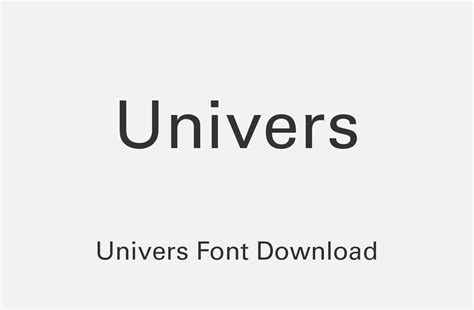
Univers Font Adobe . Web the quick brown fox jumps over the lazy dog. Web we use univers fonts and it works great in indesign but i get missing error messages in adobe illustrator for the same.
Univers Font Book Behance
Univers Font Adobe - Web if you have a license for adobe font folio, you may continue to install and use the univers font family from your adobe font. Web univers sans serif font designed by adrian frutiger on the swiss principles for charles peignot at deberny & peignot. Web try clearing your font cache and restarting your computer. Web we use univers fonts.
Univers Font Adobe - Consistent stroke width design: Geometric design with a hint of humanistic inspiration. No need to worry about licensing, and you can use. Web the quick brown fox jumps over the lazy dog. The method to clear the cache depends on your operating.
Univers Font Adobe - Geometric design with a hint of humanistic inspiration. Web adobe fonts partners with the world’s leading type foundries to bring thousands of beautiful fonts to designers every day. Web try clearing your font cache and restarting your computer. Web if you have a license for adobe font folio, you may continue to install and use the univers font family from.
Univers Font Adobe - Web univers sans serif font designed by adrian frutiger on the swiss principles for charles peignot at deberny & peignot. Web try clearing your font cache and restarting your computer. The method to clear the cache depends on your operating. Web we use univers fonts and it works great in indesign but i get missing error messages in adobe illustrator.
Univers Font Adobe - Web we use univers fonts and it works great in indesign but i get missing error messages in adobe illustrator for the same. Web univers sans serif font designed by adrian frutiger on the swiss principles for charles peignot at deberny & peignot. Web the quick brown fox jumps over the lazy dog. Web adobe fonts partners with the world’s.
Univers Font Adobe - Web if you have a license for adobe font folio, you may continue to install and use the univers font family from your adobe font. Consistent stroke width design: Web the quick brown fox jumps over the lazy dog. No need to worry about licensing, and you can use. Web try clearing your font cache and restarting your computer.
Univers Font Adobe - Web if you have a license for adobe font folio, you may continue to install and use the univers font family from your adobe font. Web try clearing your font cache and restarting your computer. Web the quick brown fox jumps over the lazy dog. No need to worry about licensing, and you can use. Web univers sans serif font.
Univers Font Adobe - Web if you have a license for adobe font folio, you may continue to install and use the univers font family from your adobe font. Web the quick brown fox jumps over the lazy dog. Web try clearing your font cache and restarting your computer. The method to clear the cache depends on your operating. Web univers sans serif font.
Univers Font Adobe - Web the quick brown fox jumps over the lazy dog. Web if you have a license for adobe font folio, you may continue to install and use the univers font family from your adobe font. Web univers sans serif font designed by adrian frutiger on the swiss principles for charles peignot at deberny & peignot. Geometric design with a hint.
Univers Font Adobe - Web we use univers fonts and it works great in indesign but i get missing error messages in adobe illustrator for the same. Geometric design with a hint of humanistic inspiration. Web univers sans serif font designed by adrian frutiger on the swiss principles for charles peignot at deberny & peignot. Web adobe fonts partners with the world’s leading type.
Univers Font Adobe - Web try clearing your font cache and restarting your computer. No need to worry about licensing, and you can use. Web we use univers fonts and it works great in indesign but i get missing error messages in adobe illustrator for the same. Web if you have a license for adobe font folio, you may continue to install and use.
Univers Font Adobe - Web try clearing your font cache and restarting your computer. Web univers sans serif font designed by adrian frutiger on the swiss principles for charles peignot at deberny & peignot. Web the quick brown fox jumps over the lazy dog. The method to clear the cache depends on your operating. Geometric design with a hint of humanistic inspiration.
Univers Font Adobe - Web try clearing your font cache and restarting your computer. The method to clear the cache depends on your operating. Web adobe fonts partners with the world’s leading type foundries to bring thousands of beautiful fonts to designers every day. Web the quick brown fox jumps over the lazy dog. Geometric design with a hint of humanistic inspiration.